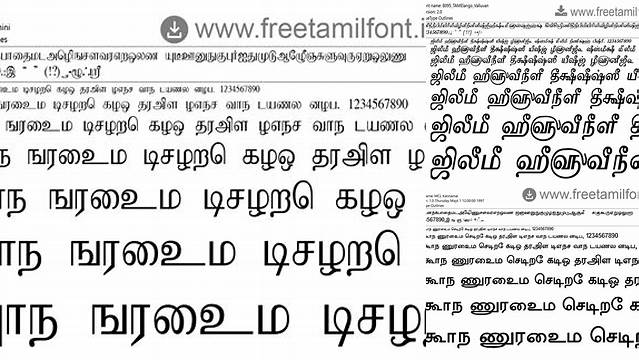
Tamil Fonts For Photoshop 7.0: Free Download Guide
Let's dive into the world of Tamil fonts for Adobe Photoshop 7.0. Finding the right font can be a game-changer for your design projects. This guide will walk you through how to find, download, and install these fonts, ensuring your creative work looks stunning. Whether you're a seasoned designer or just starting, understanding the nuances of font compatibility and usage is crucial.
1. Understanding the Importance of Tamil Fonts
Tamil fonts are essential for creating visually appealing and culturally relevant designs. The right font can enhance the readability and aesthetic appeal of your projects, especially when targeting a Tamil-speaking audience. Guys, imagine creating posters, brochures, or social media graphics that truly resonate with your audience because the fonts are just perfect. The impact is huge! So, let’s explore why choosing the right Tamil font is so critical for your design work.
The cultural relevance that Tamil fonts bring to the table is immense. When you use a font that accurately reflects the Tamil script and its nuances, you're showing respect for the language and culture. This can significantly improve the reception of your design among Tamil-speaking communities. Think about it – a well-chosen font can communicate more than just words; it communicates understanding and appreciation.
Moreover, the visual appeal of your designs hinges on the font you select. A poorly chosen font can make even the best design look unprofessional or unreadable. Tamil script has its unique characteristics, and using a font that complements these characteristics can make your designs pop. This is where understanding the different styles and weights of Tamil fonts comes in handy. Experimenting with various options can help you find the perfect match for your project.
Readability is another key factor. A font that is difficult to read can detract from your message, no matter how beautiful the design. When choosing a Tamil font, ensure that it is clear and legible, especially in smaller sizes. This is particularly important for body text in brochures or articles. Testing your font choices on different devices and screen sizes can also help you ensure readability across various platforms.
FontSpace is also a great option for finding free Tamil fonts. The site has a vibrant community of designers who contribute fonts, and the selection is quite diverse. FontSpace also offers a rating system, so you can see which fonts are most popular and well-regarded by other users. User reviews can also provide valuable insights into the font's quality and usability. Before downloading, make sure to review the license agreement to understand any restrictions on usage.
3. Ensuring Compatibility with Adobe Photoshop 7.0
Adobe Photoshop 7.0 is an older version, so ensuring Tamil font compatibility is crucial. This section will guide you on how to check if a font is compatible and what to do if you encounter any issues. Trust me, guys, you don't want to spend hours downloading fonts only to find out they don't work!
One of the first things to consider is the font format. Photoshop 7.0 primarily supports TrueType (.ttf) and Type 1 (.pfb) fonts. While OpenType (.otf) fonts are generally compatible, older versions of Photoshop may not fully support all the advanced features of these fonts. If you're downloading a font in .otf format, it's a good idea to test it in Photoshop 7.0 to ensure it displays correctly.
Before installing a font, take a moment to preview it on your system. Most operating systems have a built-in font viewer that allows you to see how the font will look in different sizes and styles. This can help you identify any potential issues before you install the font in Photoshop. Look for any unusual characters or rendering problems that might indicate a compatibility issue.
If you encounter compatibility issues, there are a few troubleshooting steps you can take. One option is to convert the font to a different format using a font conversion tool. There are several free online converters that can convert fonts between .ttf, .otf, and other formats. However, be aware that converting fonts may sometimes result in a loss of quality, so it's always best to start with a font that is natively compatible with Photoshop 7.0.
4. Step-by-Step Guide to Installing Tamil Fonts
Installing Tamil fonts on your computer is a straightforward process. This section provides a step-by-step guide to help you install your downloaded fonts correctly. I promise, it's easier than making a cup of coffee! Let's get those fonts installed and ready to use in Photoshop.
The first step is to locate the downloaded font file. Once you've downloaded the font from a reliable source, it will typically be in a compressed format like .zip. Extract the font file from the archive. You should see a file with a .ttf or .otf extension, depending on the font format.
Next, you need to install the font on your operating system. On Windows, right-click on the font file and select "Install." This will add the font to your system's font directory. Alternatively, you can copy the font file to the Fonts folder in the Windows directory (usually located at C:\Windows\Fonts). On macOS, double-click the font file, and the Font Book application will open. Click the "Install Font" button to install the font.
Once the font is installed, restart Adobe Photoshop 7.0. This ensures that Photoshop recognizes the newly installed font. If Photoshop is already running, it may not detect the font until you restart the application. After restarting, the font should appear in the font selection menu when you're working with text layers.
5. Troubleshooting Common Font Issues
Even with the best preparation, you might encounter issues with your Tamil fonts in Adobe Photoshop 7.0. This section covers some common problems and their solutions. Don't worry, guys, we've all been there. Let's get these issues sorted out!
One common issue is that the font doesn't appear in Photoshop's font list after installation. This usually happens if Photoshop was running during the installation process. As mentioned earlier, restarting Photoshop after installing the font usually resolves this issue. Make sure to close and reopen Photoshop to refresh the font list.
Another problem you might encounter is garbled or incorrect characters. This can occur if the font is not fully compatible with Photoshop 7.0 or if there is a problem with the font file itself. Try downloading the font from a different source or converting it to a different format to see if that resolves the issue. Also, ensure that your system's language settings are configured to support Tamil script.
Sometimes, fonts may appear pixelated or blurry, especially at larger sizes. This can be due to the font's design or the rendering settings in Photoshop. Try adjusting the anti-aliasing settings in Photoshop to improve the font's appearance. You can find these settings in the Character panel under the "Anti-aliasing" menu. Experiment with different options like "Sharp," "Crisp," or "Smooth" to see which one works best for your font.
6. Exploring Different Styles of Tamil Fonts
Tamil fonts come in various styles, each suitable for different design purposes. This section explores some popular styles of Tamil fonts and how to use them effectively in your projects. Let's get creative and see what kind of magic we can make with these fonts!
Serif fonts are characterized by small decorative strokes at the ends of the letters. They are often used for body text in books and articles because they are considered to be more readable at smaller sizes. In Tamil, serif fonts can give your designs a traditional and formal look. They are great for projects that require a sense of authority or elegance.
Sans-serif fonts, on the other hand, lack these decorative strokes and have a cleaner, more modern appearance. They are often used for headlines, logos, and other display purposes. Sans-serif fonts are generally more readable on screens, making them a good choice for web design and digital media. In Tamil, sans-serif fonts can give your designs a contemporary and minimalist feel.
Script fonts mimic the look of handwriting and are often used for invitations, greeting cards, and other decorative purposes. They can add a touch of personality and warmth to your designs. However, script fonts can be more difficult to read, so it's important to use them sparingly and in larger sizes. In Tamil, script fonts can be particularly beautiful, but they should be used with care to ensure readability.
7. Using Tamil Fonts for Logos and Branding
Choosing the right Tamil font for your logo and branding is crucial for creating a strong and recognizable brand identity. This section offers tips on selecting the best font to represent your brand. Remember, guys, your font is often the first thing people see, so make it count!
The font you choose should reflect your brand's personality and values. If your brand is traditional and authoritative, a serif font might be a good choice. If your brand is modern and innovative, a sans-serif font might be more appropriate. Consider what message you want to convey and choose a font that aligns with that message.
Ensure that the font is legible and easily recognizable, even at small sizes. Your logo will likely be used in various contexts, from business cards to websites, so it's important that it remains readable in all situations. Avoid fonts that are too decorative or complex, as they can be difficult to read and may not scale well.
Consider the cultural relevance of the font. If your brand is targeting a Tamil-speaking audience, using a Tamil font can show that you understand and respect their culture. This can help you build trust and credibility with your target audience. Choose a font that accurately reflects the Tamil script and its nuances.
8. Creating Eye-Catching Designs with Tamil Typography
Tamil typography can be a powerful tool for creating visually stunning designs. This section provides tips on how to use Tamil fonts effectively to create eye-catching designs. Let's unleash your creativity and make some magic happen!
Use contrast to make your text stand out. Experiment with different font weights, sizes, and colors to create visual interest. A bold headline paired with a lighter body text can draw the reader's eye and make your message more impactful. Don't be afraid to play with different combinations until you find something that works.
Pay attention to spacing and alignment. Proper spacing can improve readability and create a more polished look. Adjust the kerning (the space between individual letters) and the leading (the space between lines of text) to optimize the appearance of your text. Consistent alignment can also create a sense of order and professionalism.
Incorporate visual elements to complement your typography. Use images, illustrations, and graphics to enhance your message and create a more engaging design. Ensure that the visual elements are consistent with the font and overall style of your design.
9. Resources for Learning Tamil Typography
To master Tamil typography, continuous learning is essential. This section provides resources to help you deepen your knowledge and skills. Knowledge is power, guys, so let's get learning!
Online courses are a great way to learn the fundamentals of typography and design. Platforms like Coursera, Udemy, and Skillshare offer courses on typography, graphic design, and related topics. These courses often include video lectures, hands-on exercises, and feedback from instructors.
Books on typography and design can provide in-depth knowledge and insights. Look for books that cover the principles of typography, font design, and visual communication. Some popular titles include "The Elements of Typographic Style" by Robert Bringhurst and "Thinking with Type" by Ellen Lupton.
Websites and blogs dedicated to typography and design can keep you up-to-date on the latest trends and techniques. Sites like Smashing Magazine, A List Apart, and Designmodo regularly publish articles on typography, web design, and user experience. Following these resources can help you stay informed and inspired.
10. The Future of Tamil Fonts in Digital Design
The future of Tamil fonts in digital design is bright. As technology evolves, new opportunities are emerging for creating and using Tamil fonts in innovative ways. Let's take a peek into the future and see what's in store!
Advancements in font technology are making it easier to create and use complex scripts like Tamil. Variable fonts, for example, allow for greater flexibility and customization, enabling designers to create fonts that adapt to different screen sizes and resolutions. These advancements can improve the readability and visual appeal of Tamil text in digital media.
The growing demand for localized content is driving the need for high-quality Tamil fonts. As more businesses and organizations target Tamil-speaking audiences, the demand for fonts that accurately reflect the Tamil script and culture will continue to grow. This presents an opportunity for font designers and typographers to create fonts that meet the needs of this growing market.
The integration of AI and machine learning is opening up new possibilities for font design. AI can be used to automate certain aspects of the design process, such as generating variations of a font or optimizing its readability. This can help designers create fonts more efficiently and effectively.
11. Finding Tamil Calligraphy Fonts
For a touch of elegance, Tamil calligraphy fonts can add a unique flair to your designs. This section will guide you on where to find these beautiful fonts. Let's find some fonts that will make your designs sing!
Creative Market is a great place to start your search. This platform offers a variety of calligraphy fonts, including some beautiful Tamil options. The fonts are typically created by independent designers, so you'll find unique and high-quality options that you won't find anywhere else. Always check the license agreement before using any font to ensure it aligns with your project's requirements.
Etsy is another excellent resource for finding Tamil calligraphy fonts. Many independent designers sell their fonts on Etsy, and you can often find unique and handcrafted options. Etsy is also a great place to support small businesses and individual artists. Be sure to read the reviews and check the designer's portfolio before making a purchase.
MyFonts also offers a selection of Tamil calligraphy fonts. This site is known for its extensive collection of fonts and its user-friendly search interface. You can filter your search by style, language, and other criteria to find the perfect font for your project. MyFonts also provides detailed previews and character maps, so you can see exactly what you're getting before you buy.
12. Using Google Input Tools for Tamil Typing
If you're not familiar with Tamil keyboard layouts, Google Input Tools can be a lifesaver. This section explains how to use Google Input Tools for typing in Tamil. Typing in Tamil has never been easier, guys!
Google Input Tools is a free tool that allows you to type in Tamil using a standard English keyboard. It works by converting your English keystrokes into Tamil characters. This can be particularly useful if you don't have a Tamil keyboard or if you're not comfortable using a Tamil keyboard layout.
To use Google Input Tools, first, install the extension in your Chrome browser. Once installed, you can select Tamil as your input language. As you type, Google Input Tools will suggest Tamil words and characters based on your English keystrokes. You can then select the desired word or character from the suggestions.
Google Input Tools also supports transliteration, which means you can type Tamil words phonetically using English letters. For example, if you type "vanakkam," Google Input Tools will convert it to வணக்கம். This can be a faster and more intuitive way to type in Tamil, especially if you're not familiar with the Tamil script.
13. Incorporating Tamil Fonts in Web Design
Using Tamil fonts in web design requires some careful consideration. This section provides tips on how to ensure your Tamil fonts look great on the web. Let's make your website look fantastic!
Use web-safe Tamil fonts to ensure compatibility across different browsers and devices. Web-safe fonts are fonts that are commonly installed on most computers, so you don't have to worry about users not being able to see them. Some popular web-safe Tamil fonts include Latha and Bambino.
Consider using Google Fonts for Tamil fonts. Google Fonts is a free service that provides a wide range of open-source fonts, including several Tamil options. Google Fonts are hosted on Google's servers, so they load quickly and reliably. Plus, they're easy to embed in your website using a simple code snippet.
Use CSS to style your Tamil text. CSS (Cascading Style Sheets) allows you to control the appearance of your text, including the font family, size, color, and spacing. By using CSS, you can ensure that your Tamil text looks consistent across your entire website. You can also use CSS to create responsive designs that adapt to different screen sizes.
14. Free Tamil Font Converter Tools
Sometimes, you may need to convert Tamil fonts from one format to another. This section introduces some free tools that can help you with font conversion. Let's find the right tool for the job!
Online font converters are a convenient way to convert fonts without having to install any software. There are several free online converters that can convert fonts between .ttf, .otf, and other formats. Simply upload your font file, select the desired output format, and click "Convert." The converted font will be downloaded to your computer.
FontForge is a powerful open-source font editor that can also be used for font conversion. FontForge allows you to edit and modify fonts, as well as convert them between different formats. It's a more advanced tool than online converters, but it offers greater flexibility and control over the conversion process.
TransType is a commercial font converter that offers a wide range of features and options. It supports a variety of font formats and can convert fonts in batch mode. TransType also allows you to customize the conversion settings to optimize the output for different platforms and devices.
15. Choosing the Right Font Size for Readability
Readability is key, so choosing the right font size for your Tamil text is crucial. This section provides guidelines on selecting the appropriate font size. Let's make sure everyone can read your text easily!
For body text, a font size of 16 pixels is generally considered to be the minimum for good readability on screens. However, the ideal font size may vary depending on the font family, the line height, and the screen resolution. Experiment with different font sizes to see what looks best on your website or in your document.
For headlines, use larger font sizes to create visual hierarchy and draw the reader's eye. A headline should be significantly larger than the body text to make it stand out. Use different font sizes for different levels of headings to create a clear and consistent structure.
Consider the context in which the text will be read. If the text will be viewed on a small screen, such as a smartphone, you may need to use larger font sizes to ensure readability. Similarly, if the text will be printed, you may need to use smaller font sizes to avoid wasting paper.
16. Kerning and Leading for Tamil Fonts
Kerning and leading are essential for improving the visual appearance and readability of your Tamil text. This section explains how to adjust kerning and leading for optimal results. Let's make your text look its best!
Kerning is the process of adjusting the space between individual letters to improve their visual harmony. Some letter combinations may appear too close together, while others may appear too far apart. By adjusting the kerning, you can create a more balanced and visually appealing text.
Leading is the process of adjusting the space between lines of text. Proper leading can improve readability and prevent the lines of text from appearing too crowded. The ideal leading depends on the font size, the line length, and the overall design of the page. A general rule of thumb is to use a leading value that is 120% to 145% of the font size.
Use professional design software like Adobe Photoshop or Adobe InDesign to adjust kerning and leading. These programs offer precise controls and previews, allowing you to fine-tune the appearance of your text. Experiment with different kerning and leading values to see what works best for your font and your design.
17. Common Mistakes to Avoid When Using Tamil Fonts
Using Tamil fonts effectively requires avoiding common mistakes. This section highlights some pitfalls to watch out for. Let's make sure you're not making these errors, guys!
Using too many different fonts in a single design can create a cluttered and unprofessional look. Stick to a limited number of fonts (typically two or three) and use them consistently throughout your design. Choose fonts that complement each other and that are appropriate for the overall style of your design.
Ignoring readability is a common mistake, especially when using decorative fonts. Ensure that your text is legible and easy to read, even at small sizes. Avoid fonts that are too complex or that have unusual character shapes. Always test your designs on different devices and screen sizes to ensure readability across platforms.
Not considering cultural context can lead to misunderstandings or offense. Choose fonts that accurately reflect the Tamil script and culture. Avoid using fonts that are associated with other languages or cultures, as this can be confusing or disrespectful. Always research the background and history of a font before using it in your designs.
18. The Importance of Licensing for Tamil Fonts
Understanding font licensing is crucial to avoid legal issues. This section explains the importance of licensing for Tamil fonts. Let's make sure you're using fonts legally, guys!
Font licenses dictate how you can use a font. Some fonts are free for personal use but require a commercial license for business purposes. Other fonts may have restrictions on how you can modify or redistribute them. Always read the license agreement carefully before using a font to ensure that you comply with its terms.
Using a font without a proper license can lead to legal consequences, including fines and lawsuits. Font designers and foundries rely on licensing fees to support their work, so it's important to respect their rights. If you're unsure about the licensing terms of a font, contact the designer or foundry for clarification.
There are different types of font licenses, including desktop licenses, web licenses, and embedding licenses. A desktop license allows you to use the font on your computer for creating documents, graphics, and other materials. A web license allows you to use the font on your website. An embedding license allows you to embed the font in an application or document.
19. Where to Find Tamil Unicode Fonts
Tamil Unicode fonts are essential for ensuring compatibility across different systems. This section guides you on where to find these fonts. Let's make sure your text displays correctly everywhere!
Unicode is a universal character encoding standard that assigns a unique code point to each character in every language. Using Unicode fonts ensures that your Tamil text will display correctly on any computer or device that supports Unicode. This is particularly important for web design and digital media.
Google Fonts offers a wide range of free Unicode Tamil fonts. These fonts are hosted on Google's servers and are easy to embed in your website using a simple code snippet. Google Fonts are also optimized for web performance, so they load quickly and reliably.
SIL International provides several free Unicode Tamil fonts, including Annapurna SIL and Lohit Tamil. These fonts are designed for linguistic and educational purposes and are available under open-source licenses. SIL fonts are known for their high quality and comprehensive character support.
FontSpace also offers a selection of free Unicode Tamil fonts. The site has a vibrant community of designers who contribute fonts, and the selection is quite diverse. FontSpace also offers a rating system, so you can see which fonts are most popular and well-regarded by other users.
20. Using Tamil Fonts in Video Editing Software
Incorporating Tamil fonts in video editing can enhance your content. This section provides tips on using Tamil fonts effectively in video editing software. Let's add some Tamil flair to your videos!
Ensure that your video editing software supports Tamil fonts. Most modern video editing programs, such as Adobe Premiere Pro and Final Cut Pro, support Unicode fonts, which are necessary for displaying Tamil characters correctly. Check the software's documentation or settings to confirm compatibility.
Choose a Tamil font that is legible and visually appealing on video. Consider the font size, weight, and style, and how they will look on different screen sizes and resolutions. Avoid fonts that are too decorative or complex, as they can be difficult to read in motion.
Use titles and captions to add Tamil text to your videos. Titles are typically used for opening and closing credits, while captions are used to provide subtitles or translations. Use consistent font styles and sizes for all titles and captions to create a professional and cohesive look.
21. Creating Custom Tamil Fonts
For a truly unique touch, consider creating your own custom Tamil fonts. This section introduces the process of designing your own fonts. Let's get creative and make some unique fonts!
Font design software allows you to create and modify fonts using a variety of tools and techniques. Some popular font design programs include FontForge (open-source), Glyphs (commercial), and RoboFont (commercial). These programs offer precise controls and previews, allowing you to create fonts that meet your specific needs.
Start by sketching out the basic shapes of the Tamil characters. Pay attention to the proportions, spacing, and stroke weights. Use reference materials, such as existing Tamil fonts and calligraphy examples, to guide your design. Consider the overall style and personality of your font.
Refine your designs using font design software. Use the software's drawing tools to create accurate and consistent character shapes. Pay attention to details such as curves, corners, and serifs. Test your fonts at different sizes and resolutions to ensure readability and visual appeal.
22. The Role of Tamil Fonts in Cultural Preservation
Tamil fonts play a vital role in preserving Tamil culture and language. This section explores the importance of fonts in cultural heritage. Let's appreciate the role of fonts in our culture!
Fonts are a visual representation of a language and culture. They reflect the unique characteristics and traditions of a language and its speakers. By using and promoting Tamil fonts, we can help preserve and celebrate Tamil culture.
Fonts are used in books, newspapers, websites, and other media to communicate information and ideas. By using Tamil fonts in these media, we can ensure that Tamil language and culture continue to thrive. Fonts also play a role in education by providing a visual representation of the Tamil script for students to learn.
Fonts can be used to create a sense of identity and pride. By using Tamil fonts in logos, branding materials, and other designs, we can promote a sense of cultural identity and pride among Tamil speakers. Fonts can also be used to express creativity and individuality, allowing designers to create unique and meaningful designs.
23. Resources for Tamil Language Support in Photoshop
Getting Tamil language support in Photoshop is essential for working with Tamil fonts. This section provides resources to help you configure Photoshop for Tamil. Let's get Photoshop ready for Tamil!
Ensure that your operating system supports Tamil language input. On Windows, you can add Tamil as an input language in the Control Panel. On macOS, you can add Tamil as an input source in the System Preferences. Once you've added Tamil as an input language, you can switch between languages using the language bar or keyboard shortcuts.
Set the text engine to "World-Ready Layout" in Photoshop's preferences. This setting enables Photoshop to properly display and handle complex scripts like Tamil. You can find this setting in the Type preferences under the "Choose Text Engine Options" menu.
Use Unicode Tamil fonts for maximum compatibility. Unicode fonts are designed to support all characters in all languages, including Tamil. By using Unicode fonts, you can ensure that your Tamil text will display correctly in Photoshop and other applications.
24. Mobile Apps for Identifying Tamil Fonts
Need to identify a Tamil font you see in an image? Mobile apps can help! This section introduces apps that can identify fonts from images. Let's find out what font that is!
WhatTheFont is a popular mobile app that can identify fonts from images. Simply upload an image of the text, and WhatTheFont will analyze the image and suggest possible font matches. The app also provides links to purchase or download the identified fonts.
Font Identifier is another mobile app that can identify fonts from images. Similar to WhatTheFont, Font Identifier allows you to upload an image of the text and provides a list of possible font matches. The app also offers additional information about each font, such as its designer and foundry.
Adobe Capture is a mobile app from Adobe that can capture colors, shapes, and fonts from the world around you. Simply point your camera at the text, and Adobe Capture will identify the font and save it to your Creative Cloud library. You can then use the font in your Adobe Photoshop or other Adobe applications.
25. The Legalities of Distributing Tamil Fonts
Distributing Tamil fonts involves legal considerations. This section outlines the legal aspects of sharing fonts. Let's make sure you're distributing fonts legally!
Respect font licenses when distributing Tamil fonts. If you're distributing fonts that you've created yourself, you can choose the license under which they are distributed. If you're distributing fonts that you've downloaded from other sources, you must comply with their license agreements.
Avoid distributing pirated or illegally copied fonts. Distributing fonts without the proper license is a violation of copyright law and can lead to legal consequences. Only distribute fonts that you have the legal right to distribute.
Clearly state the license terms when distributing fonts. When distributing fonts, make sure to include a clear statement of the license terms. This will help users understand how they can use the fonts and what restrictions apply.
26. Understanding Tamil Script Characteristics for Font Selection
To choose the best Tamil font, understand the script's characteristics. This section explores these characteristics to help you make informed choices. Let's dive into the nuances of the Tamil script!
The Tamil script is an abugida, meaning that each consonant has an inherent vowel sound (usually "a"). Vowels can be indicated by adding diacritical marks to the consonant. Understanding this structure is crucial for selecting fonts that accurately represent the script.
The Tamil script includes several unique characters and ligatures. These characters and ligatures can vary from font to font, so it's important to choose fonts that include all the necessary characters and that display them correctly. Check the font's character map to ensure that it supports all the characters you need.
The Tamil script has a rich history and tradition. There are different styles of Tamil script, including traditional and modern styles. When choosing a font, consider the historical and cultural context and choose a font that is appropriate for your project.
27. Font Management Software for Tamil Fonts
Managing a large collection of Tamil fonts can be challenging. Font management software can help! This section introduces software to help you organize your fonts. Let's get your fonts organized!
FontBase is a free font management software that allows you to organize and activate fonts on your computer. FontBase supports a variety of font formats and integrates with popular design applications like Adobe Photoshop and Adobe InDesign. With FontBase, you can easily preview fonts, create font collections, and activate or deactivate fonts as needed.
NexusFont is another free font management software that offers a range of features for organizing and managing your fonts. NexusFont allows you to preview fonts, create font sets, and compare fonts side-by-side. The software also includes a font search function and a font backup tool.
Extensis Suitcase Fusion is a commercial font management software that offers advanced features for professional designers and creative teams. Suitcase Fusion allows you to organize and manage your fonts, activate fonts automatically when you open a document, and resolve font conflicts. The software also integrates with cloud storage services like Adobe Creative Cloud and Dropbox.
28. Best Practices for Using Tamil Fonts in Print Design
Using Tamil fonts in print design requires careful attention to detail. This section provides best practices for creating high-quality print designs. Let's make your print designs look amazing!
Choose fonts that are legible and visually appealing in print. Consider the font size, weight, and style, and how they will look when printed on paper. Avoid fonts that are too decorative or complex, as they can be difficult to read in print.
Use high-resolution images and graphics to ensure that your print designs look sharp and clear. Low-resolution images can appear pixelated or blurry when printed, so it's important to use high-quality images that are at least 300 dpi (dots per inch).
Proofread your designs carefully before printing. Check for typos, spelling errors, and grammatical mistakes. It's always a good idea to have someone else proofread your designs as well to catch any errors that you may have missed.
29. Using Tamil Fonts with Older Operating Systems
Using Tamil fonts with older operating systems can present challenges. This section offers tips for ensuring compatibility. Let's get those fonts working on older systems!
Ensure that your operating system supports Unicode. Unicode is a universal character encoding standard that is necessary for displaying Tamil characters correctly. Most modern operating systems support Unicode, but older operating systems may require additional configuration.
Install the necessary language packs or font packs for Tamil. Some older operating systems may not include Tamil language support by default. You may need to download and install a language pack or font pack to enable Tamil font rendering.
Use TrueType fonts (.ttf) for maximum compatibility. TrueType fonts are widely supported by older operating systems. Avoid using OpenType fonts (.otf), as they may not be fully compatible with older systems.
30. Future Trends in Tamil Font Design
The world of Tamil font design is constantly evolving. This section explores some future trends in font design. Let's see what the future holds for Tamil fonts!
Variable fonts are a new font technology that allows for greater flexibility and customization. Variable fonts can contain multiple variations of a font in a single file, allowing designers to create fonts that adapt to different screen sizes, weights, and styles. This technology is expected to become increasingly popular in the future.
AI-powered font design tools are emerging that can automate certain aspects of the font design process. These tools can use machine learning algorithms to generate font variations, optimize font spacing, and improve font readability. AI-powered tools are expected to make font design more efficient and accessible.
Increased emphasis on cultural relevance and inclusivity. Designers are increasingly focusing on creating fonts that accurately reflect the cultural and linguistic nuances of different languages. This trend is expected to continue as designers strive to create fonts that are more inclusive and representative of diverse communities.